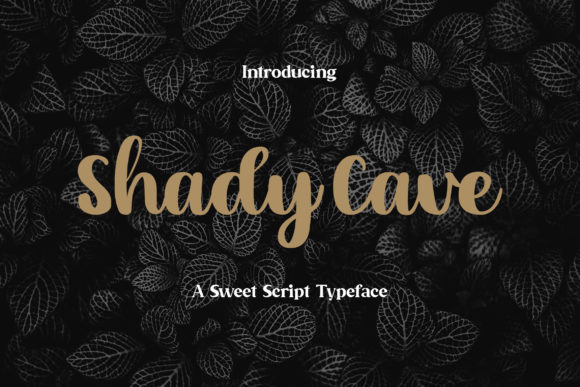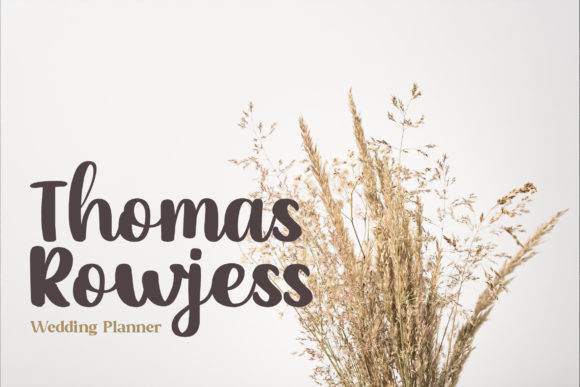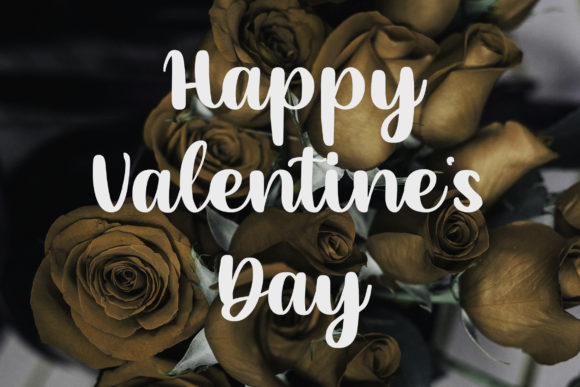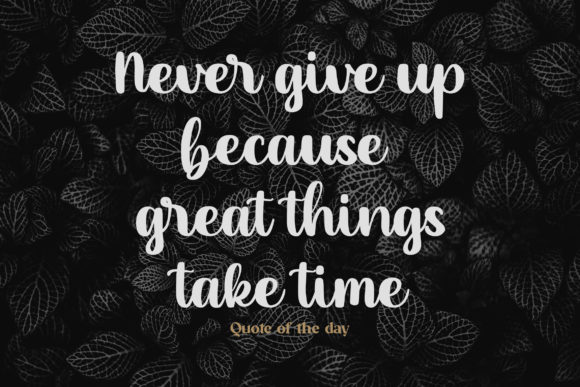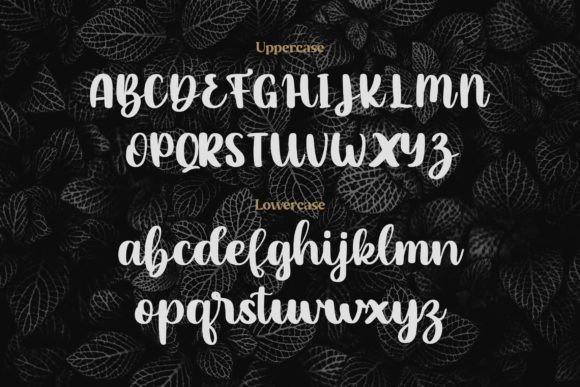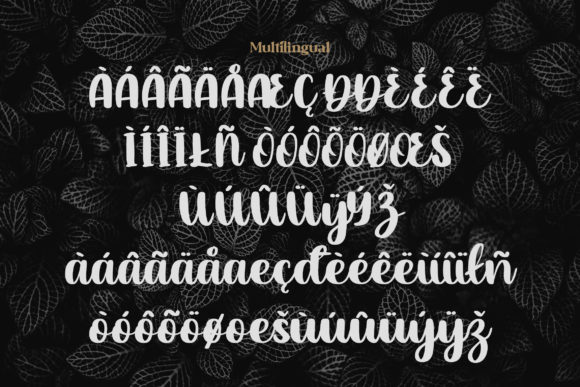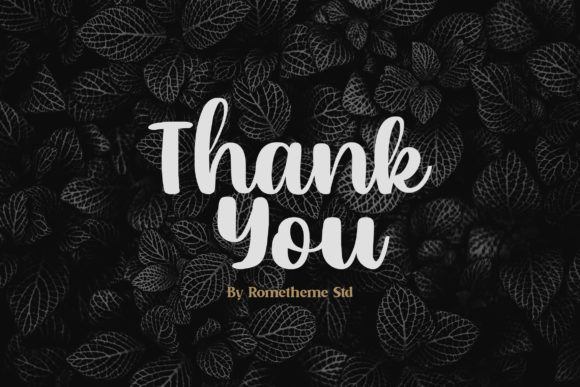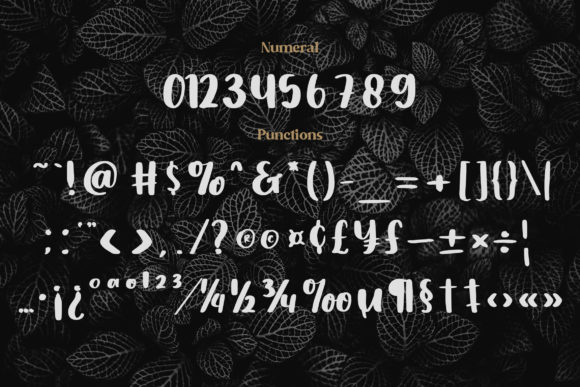
Shady Cave Font
About Shady Cave Font
Shady Cave is a simple, elegant and relaxed handwritten font. Fall in love with its incredibly versatile style and use it to create beautiful designs!